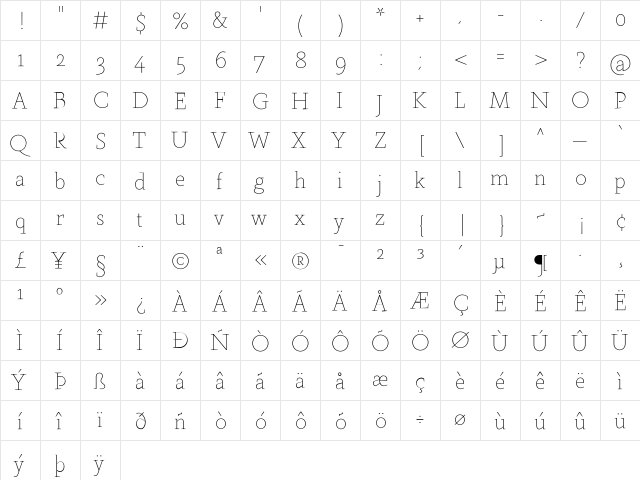
Farrerons Serif Thin Regular
Design Context for Farrerons Serif Thin Typeface
Farrerons Serif Thin carries the refined structure of traditional serif typography, with bracketed terminals and considered proportions that communicate credibility and craft. The delicate stroke weight brings airiness and refinement to layouts.
Pro Tip: Set Farrerons Serif Thin at slightly larger body copy sizes than you would a regular-weight serif to compensate for its delicate stroke contrast.